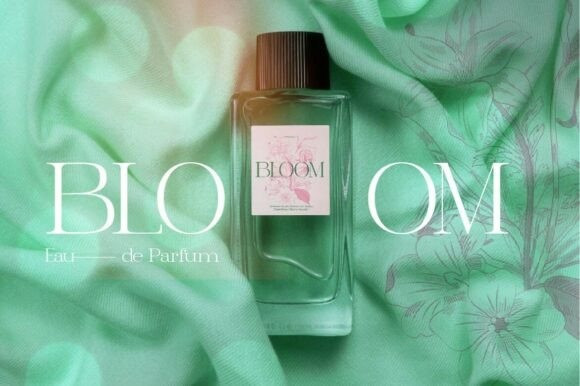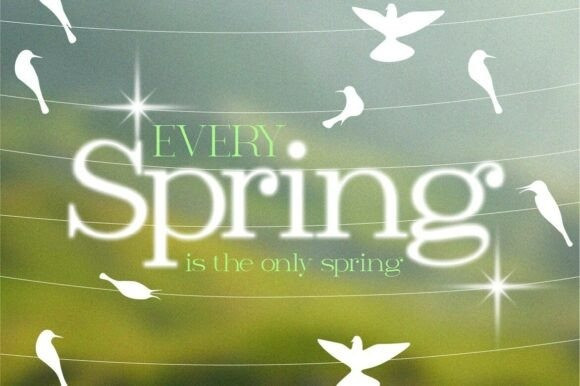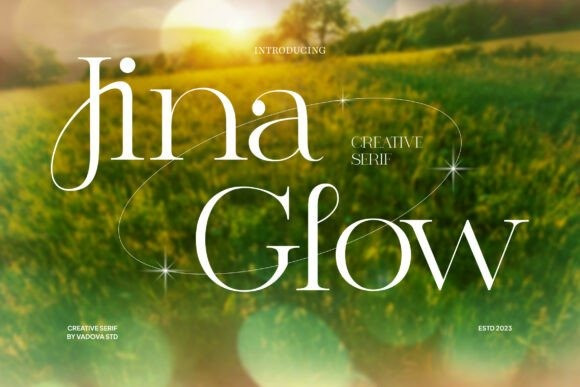
Jina Glow Font
Jina Glow Font a futuristic twist a display serif font designed to captivate attention with every letter. Its sophisticated curves and luminous energy give it a commanding presence that works beautifully across digital and print platforms. This font blends modern editorial aesthetics with a fashion-forward appeal, making it the perfect choice for Instagram creators, luxury product branding, beauty packaging, and high-end lifestyle magazines.